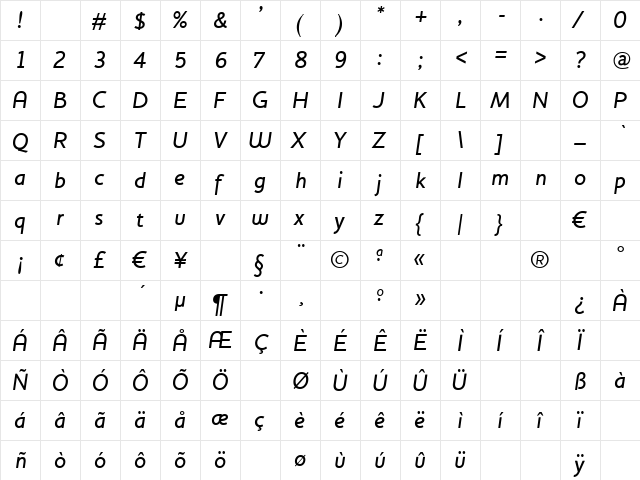
HouschkaMediumItalic Regular
Design Context for HouschkaMediumItalic Typeface
HouschkaMediumItalic is a composed and adaptable typeface that performs quietly and consistently across a wide range of design contexts. The slanted form adds forward momentum and visual energy.
Pro Tip: Try HouschkaMediumItalic for annotation and caption copy alongside an upright companion — the contrast in angle creates a dynamic but ordered typographic system.